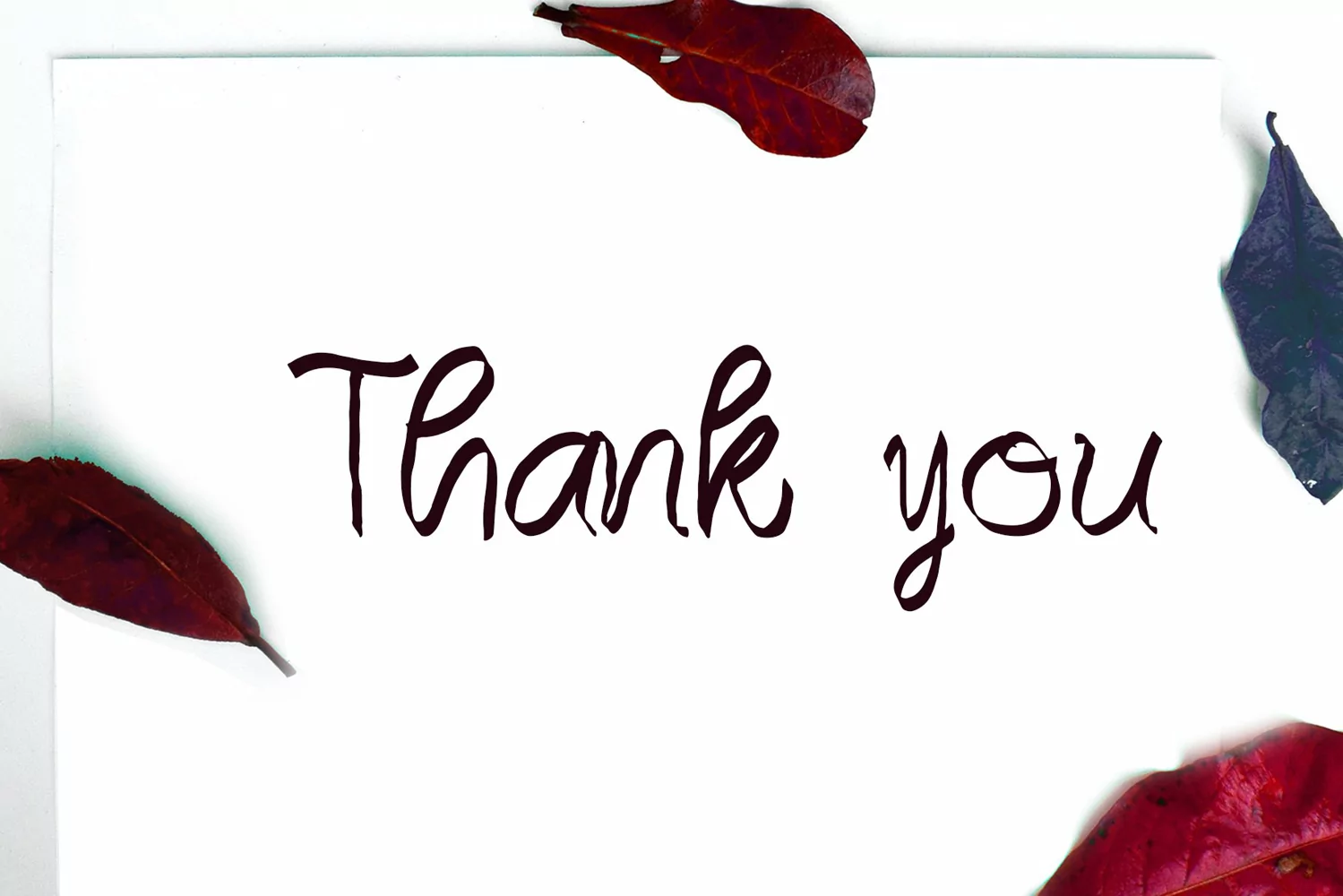
Some Love
Introducing, this is our newest product, we call this product Some Love,
It looks amazing with sweet touches and beautiful curves in each letter. Some Love fonts are perfect for: wedding invitations, fashion magazines, logos, signatures, photography, watermarks, wall displays, social media,